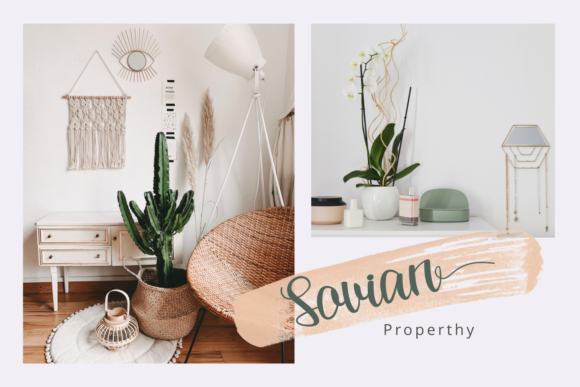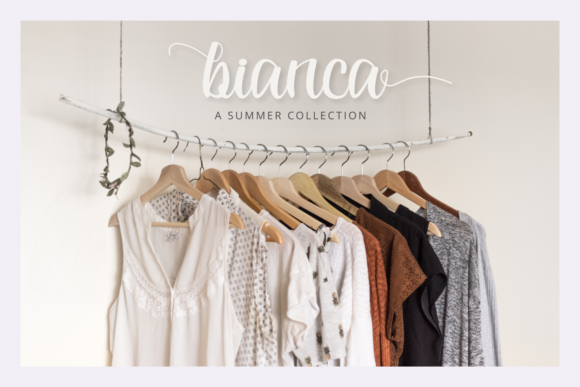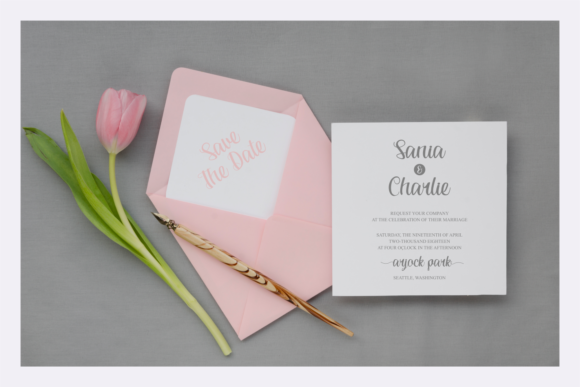
Introduction to Sathira Font
As a designer, there’s nothing quite like the rush of inspiration that comes with stumbling upon the perfect font. For me, it was a late-night browsing session that led me to the enchanting Sathira Font. Its whimsical, handwritten charm had me hooked from the very first glance. With its unique aesthetic and high-quality design, it’s no wonder why Sathira Font has become a go-to choice for creatives looking to elevate their projects.
Whether you’re working on a wedding invitation, a social media post, or a beautiful piece of stationery, Sathira Font is sure to add that special touch. With its PUA-encoded design, accessing the font’s gorgeous glyphs and stunning alternates is a breeze, making it a valuable resource for designers. Plus, its transparent background allows for seamless integration with any design project, making it a must-have for any creative.
Key Features of Sathira Font
- Designed with a unique aesthetic, making it a standout choice for designers
- Perfect for use in graphic design, digital art, and other creative pursuits
Honest Review: Sathira Font
I recently had the chance to work with the Sathira Font, and I must say it’s been a game-changer for my creative projects. As a designer, I’m always on the lookout for high-quality design resources that can elevate my work.
One of the things that stands out about the Sathira Font is its versatility. It’s perfect for creating striking headings and titles, and the transparent background option makes it super easy to layer over images. I’ve used it in a variety of projects, from branding to editorial design, and it’s always delivered.
Here are some of the things that work well with the Sathira Font:
- ✨ Highly customizable: The font comes in a range of weights and styles, making it easy to find the perfect look for your project.
- ✨ Transparent background: This feature is a total lifesaver when working with complex backgrounds or images.
- ⚠️ Limited language support: The Sathira Font only supports a limited range of languages, which may be a drawback for designers working on international projects.
- ⚠️ Some users may find the font too ornate: While I personally love the Sathira Font’s unique style, some users may find it too over-the-top for their taste.
Overall, I’m thoroughly impressed with the Sathira Font. Its high-quality design and transparent background make it a valuable addition to any designer’s toolkit. While it may have some limitations, I think the benefits far outweigh the drawbacks.
Tips for Getting the Most Out of Sathira Font
Use the Sathira Font in conjunction with other design elements, such as images and graphics, to create visually appealing designs. Experiment with different font sizes and styles to add depth and interest to your designs. The Sathira Font is a free download, making it an excellent choice for creative projects on a budget.
The Sathira Font is perfect for a variety of creative projects, including logos, social media graphics, marketing materials, presentations, and more. Its high-quality design and transparent background feature make it an ideal choice for designers and non-designers alike.